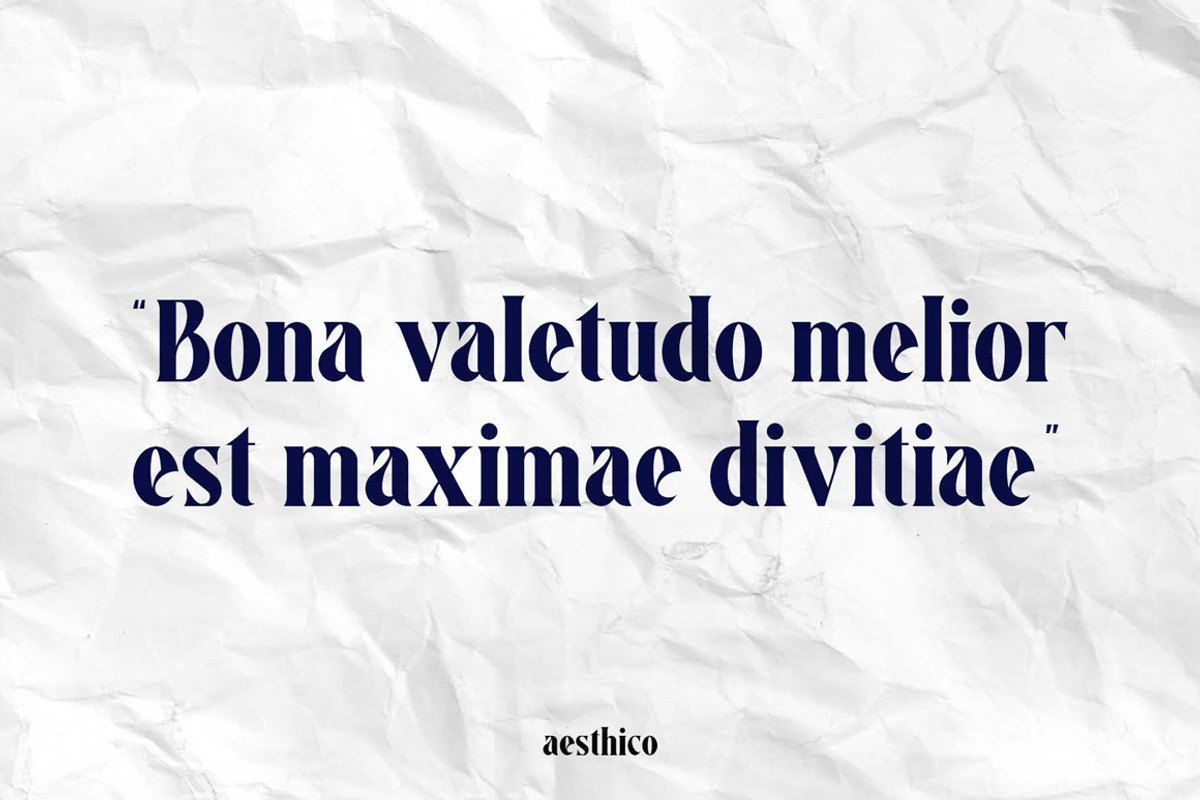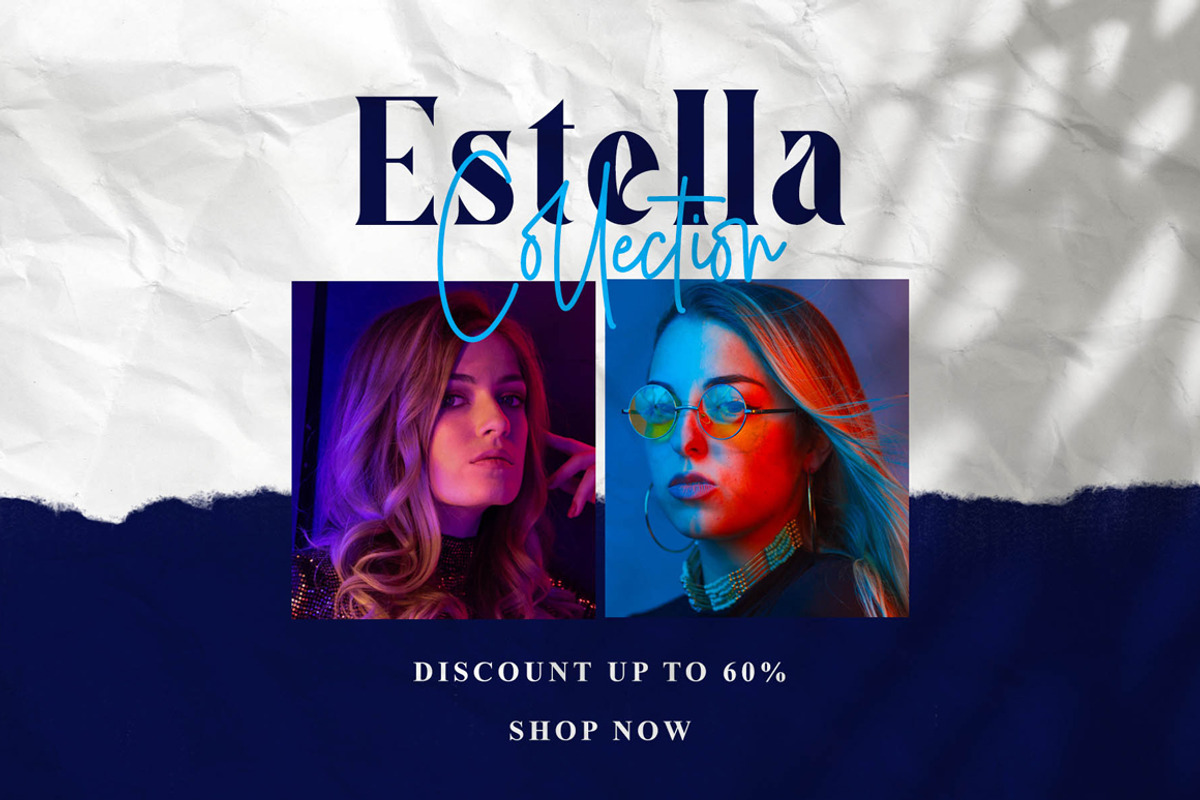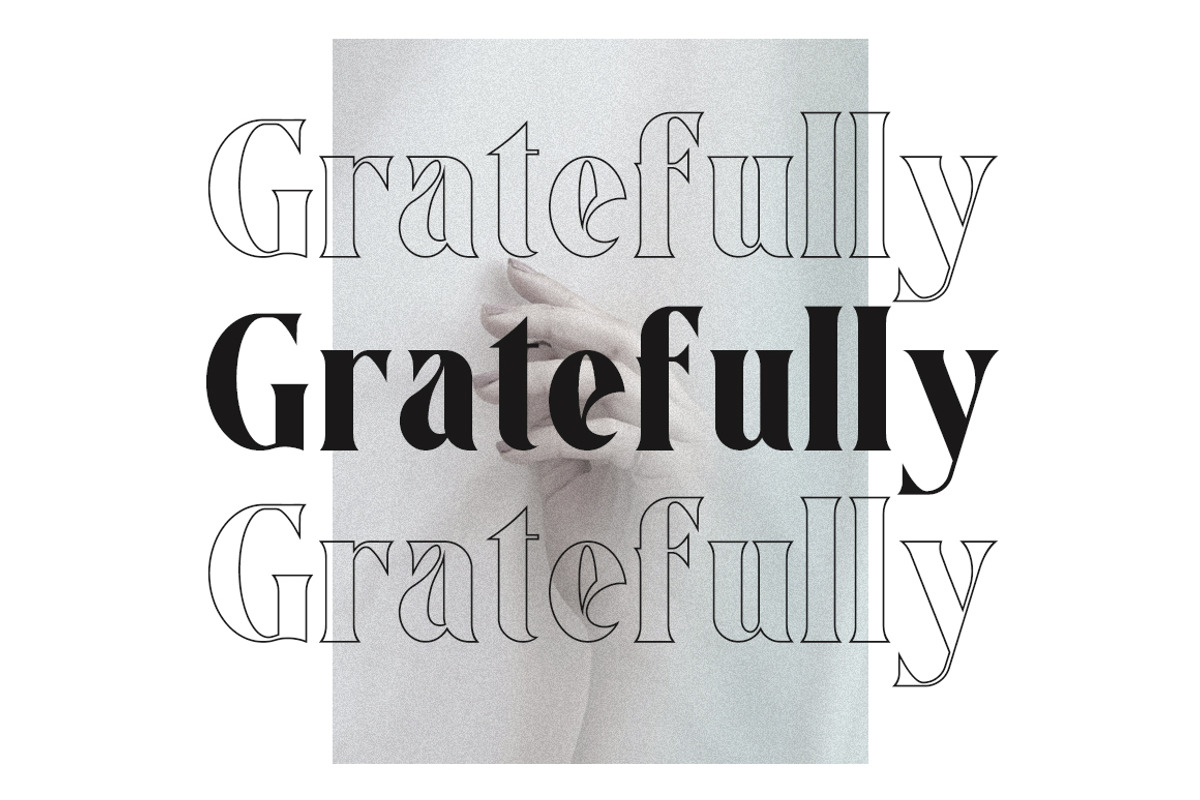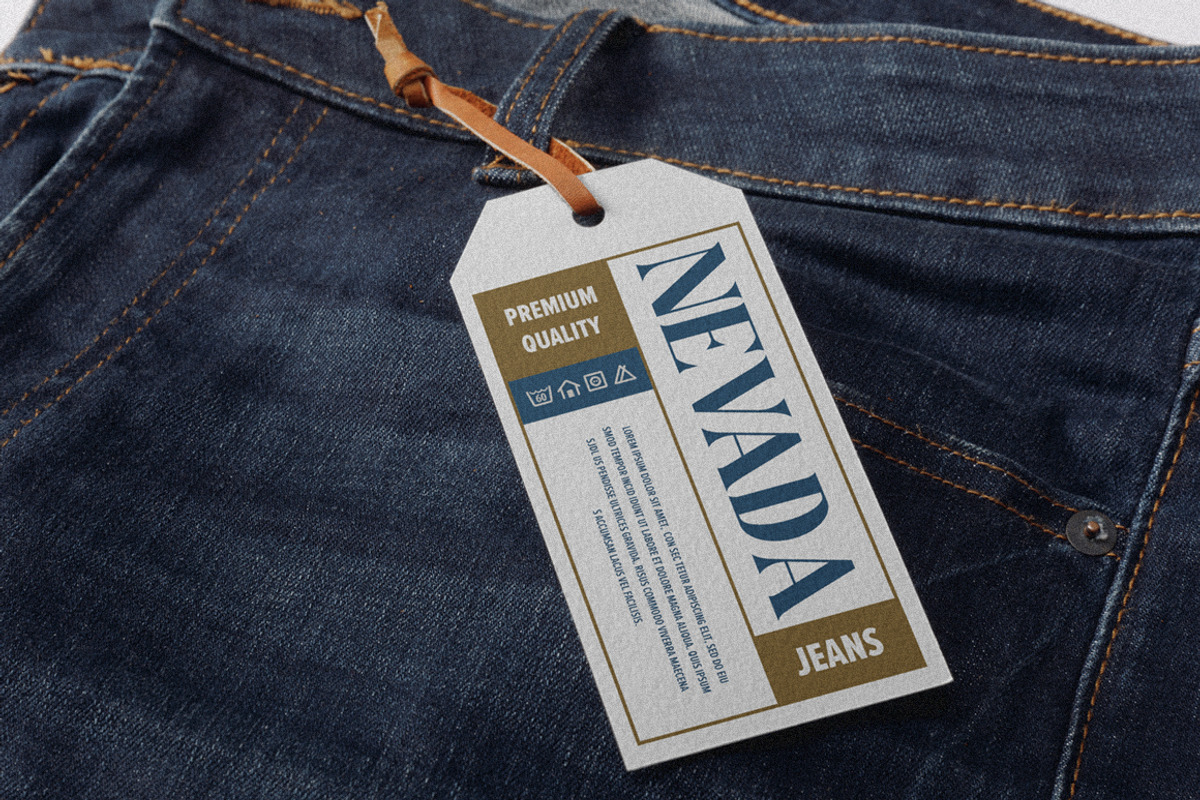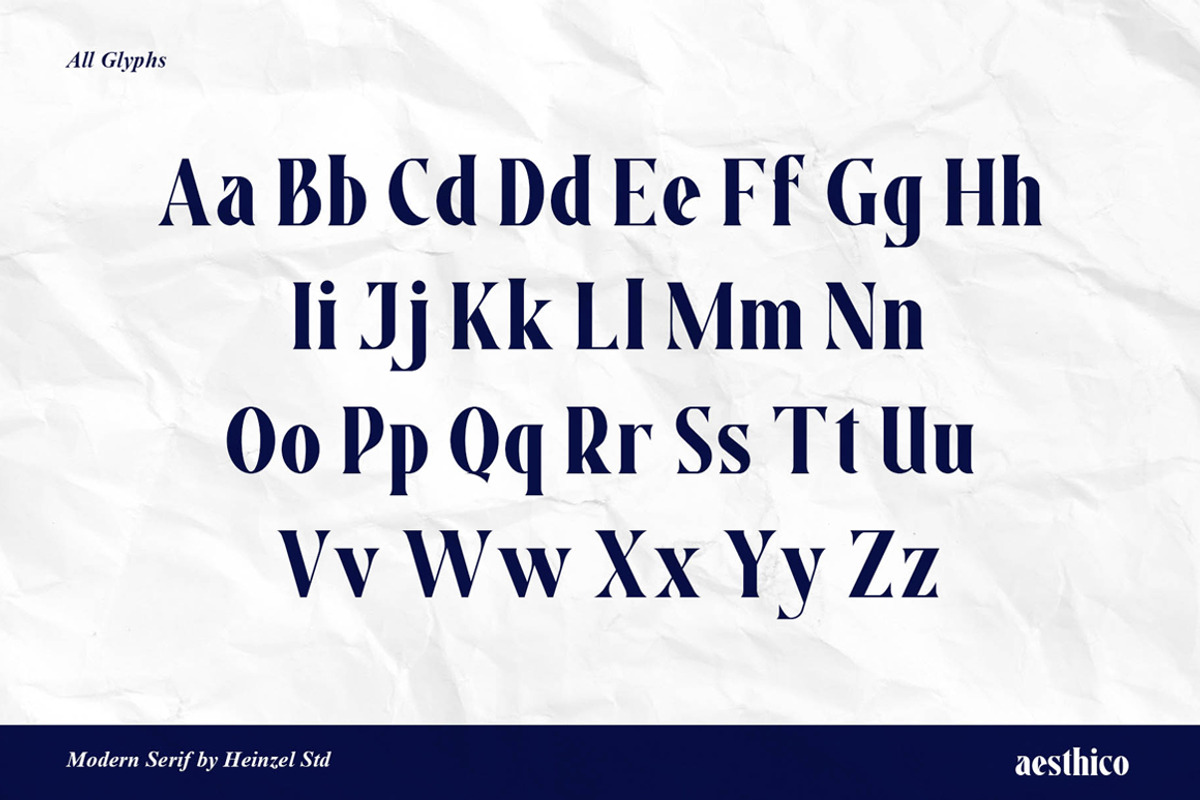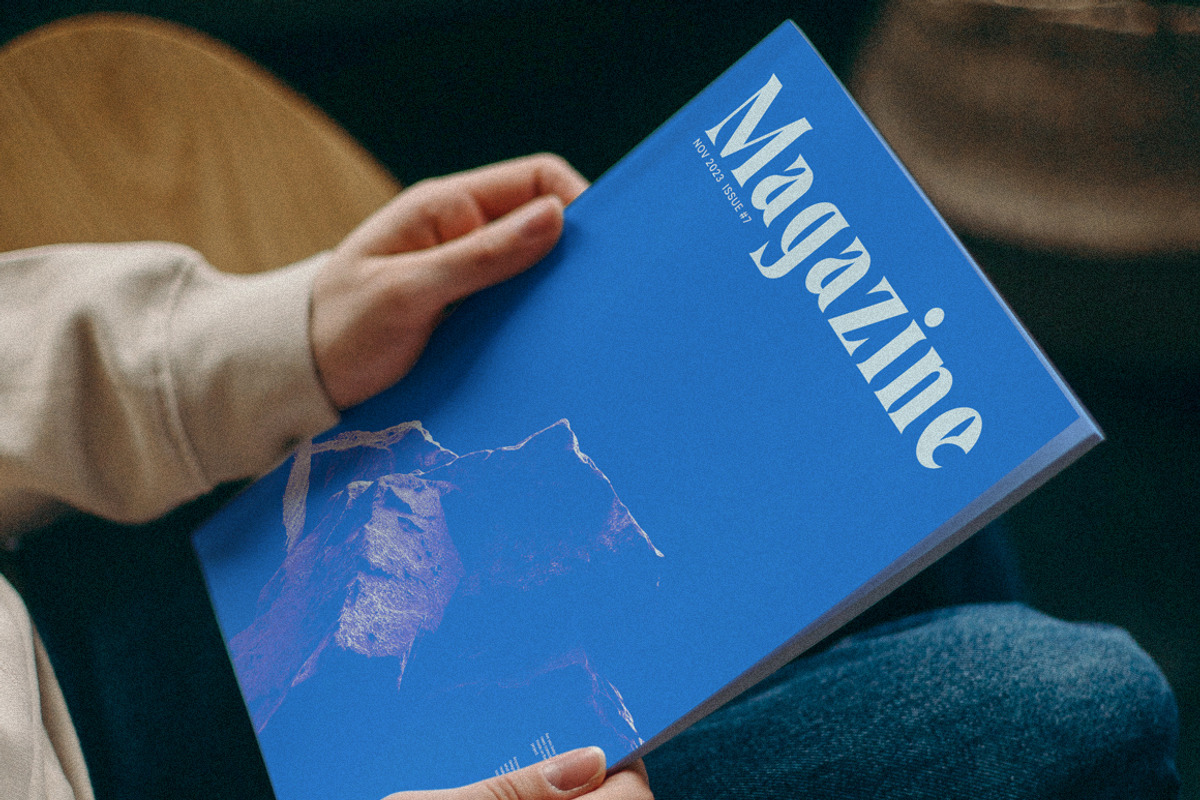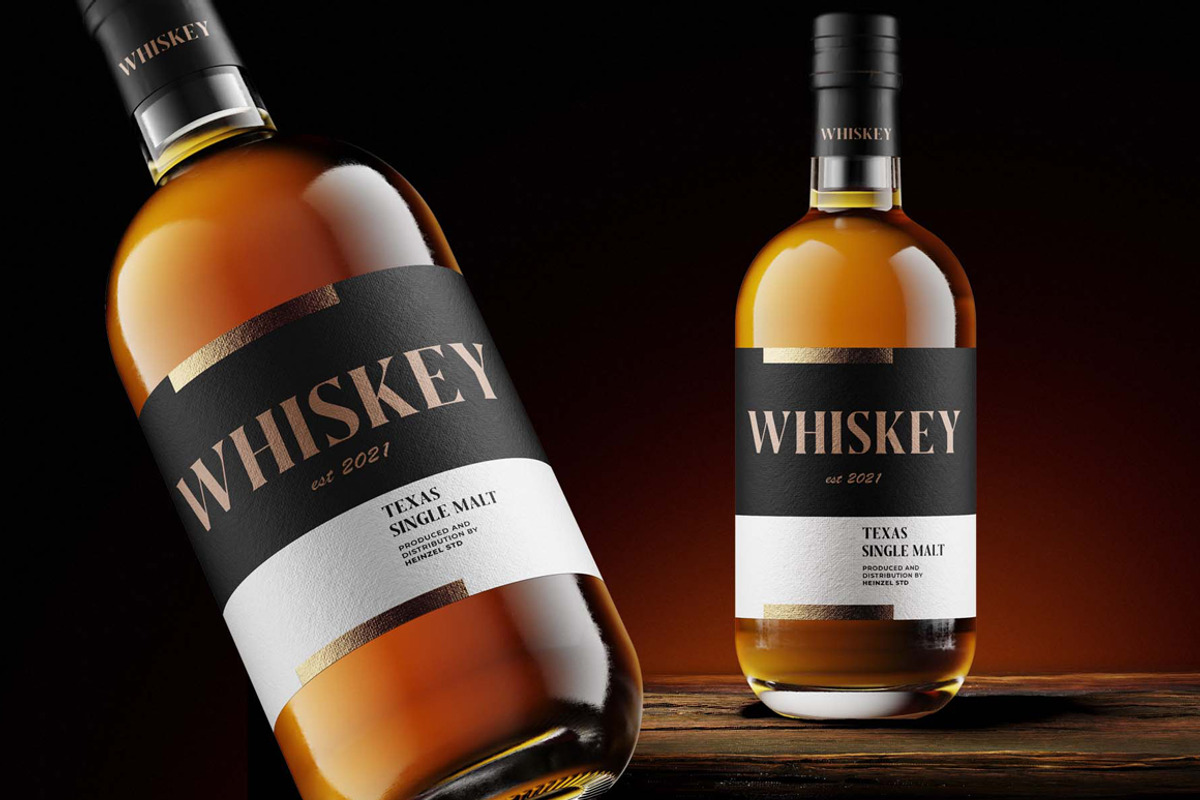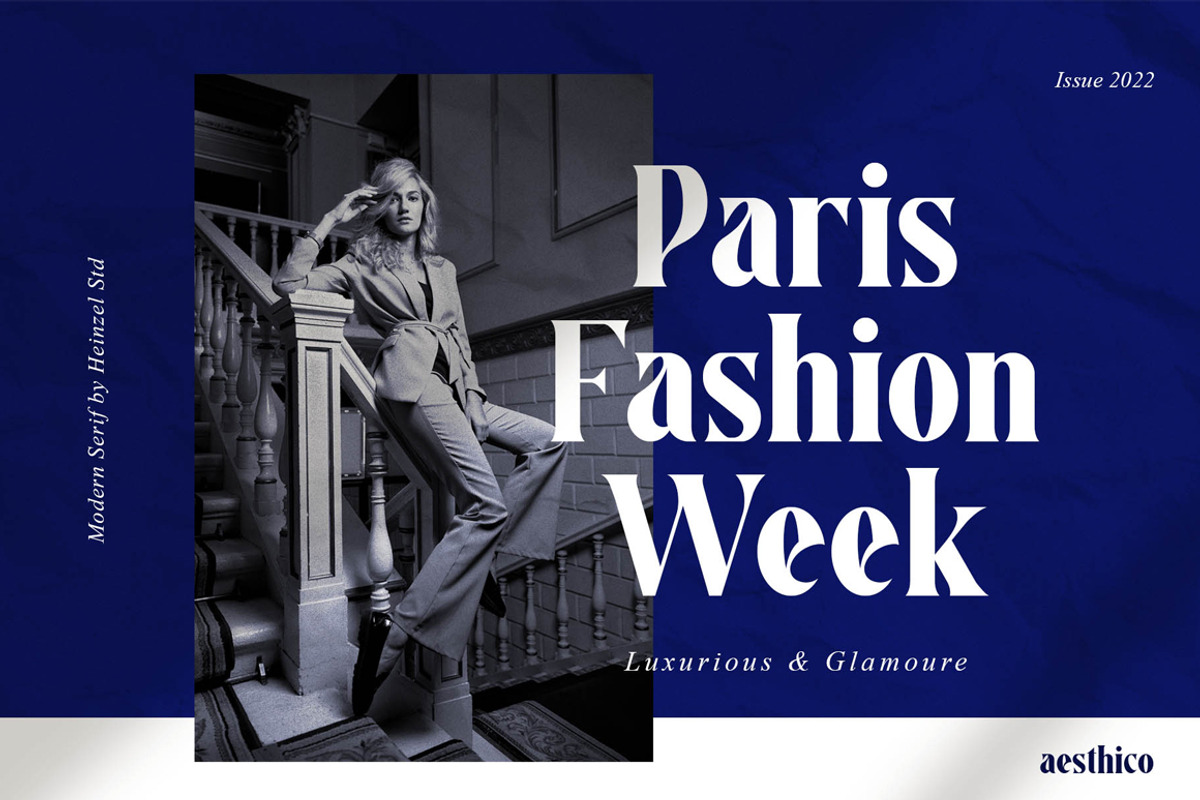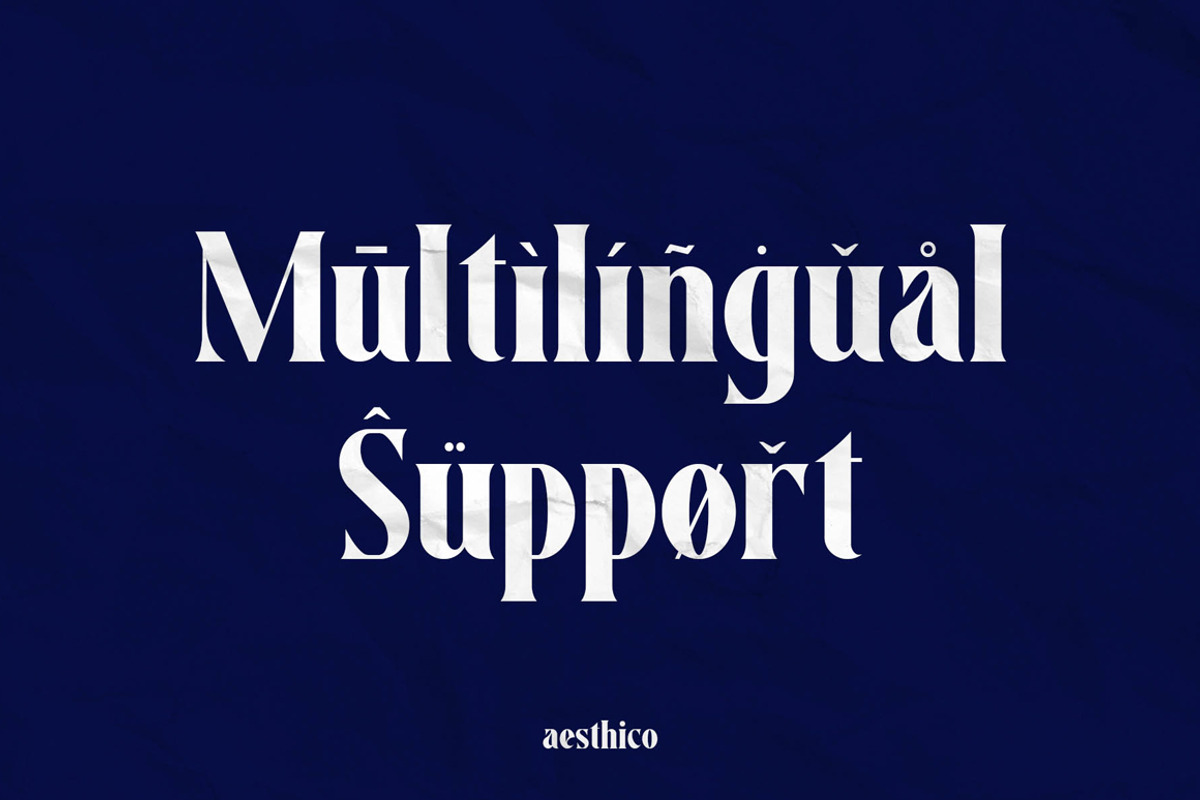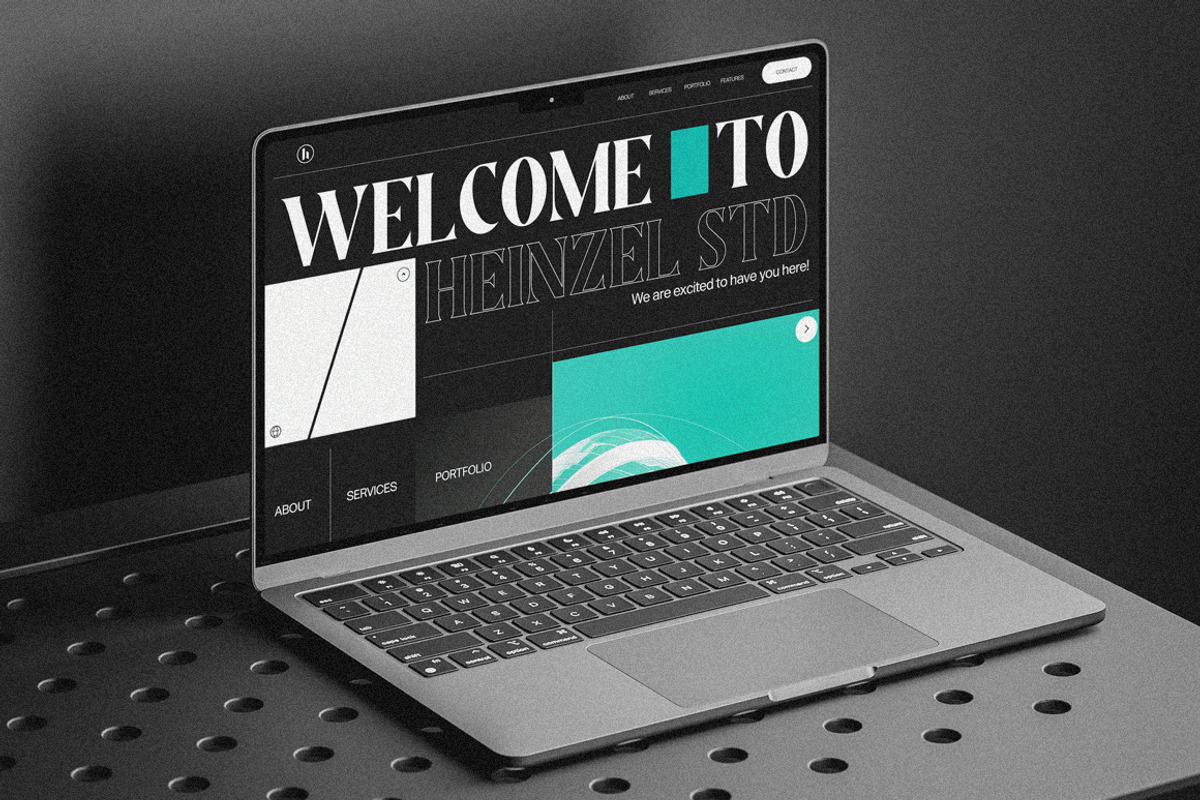
Aesthico Serif Font Family (6 Fonts)
Aesthico – Bold Serif Font Family
Aesthico is a modern serif font family designed to bring elegance, style, and versatility to your creative projects. With its bold strokes and refined curves, Aesthico blends classic serif charm with a fresh contemporary edge.
This font family includes Regular, Bold, Outline, and Italic versions, giving you the flexibility to create striking headlines, logos, branding, posters, packaging, social media graphics, and editorial designs. With 300+ glyphs and multilingual support, Aesthico ensures your designs look stunning in multiple languages and layouts.
Whether you’re building a bold brand identity or crafting stylish marketing materials, Aesthico delivers a sophisticated aesthetic that stands out.
✨ Features:
- 6 Style Serif Font Family (Regular, Bold, Outline, and Italics)
- 300+ Glyphs with extended character set
- Modern bold serif design with timeless appeal
- Perfect for logos, branding, headlines, and editorial use
- Multilingual support for global projects
Bring bold creativity and timeless style to your work with Aesthico Serif Font – a must-have typeface for designers who value both elegance and impact.